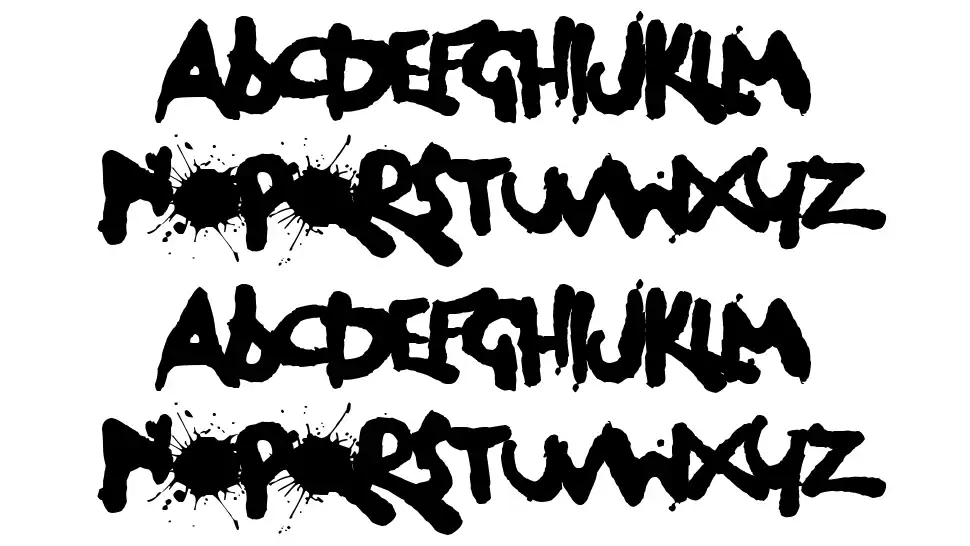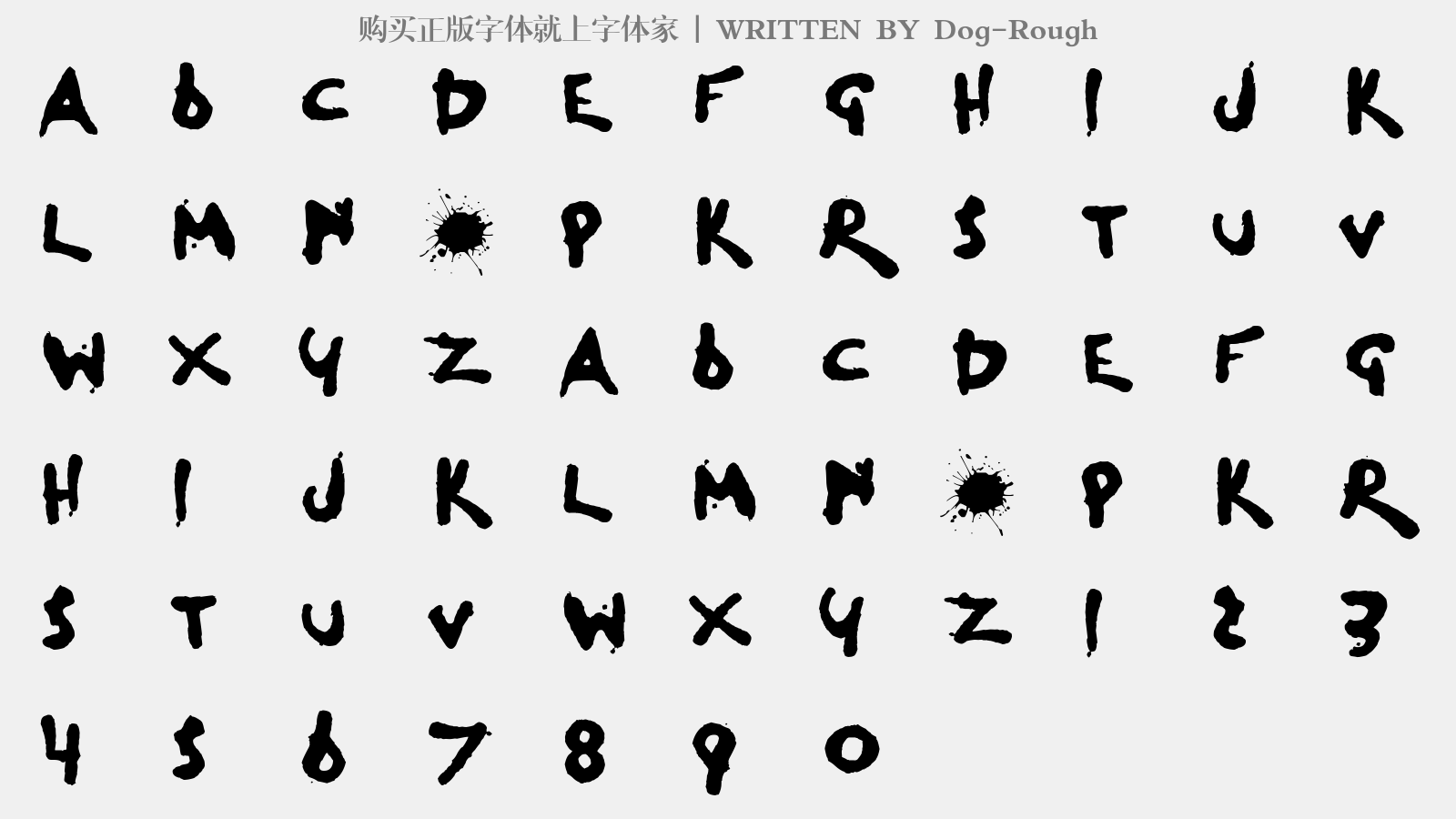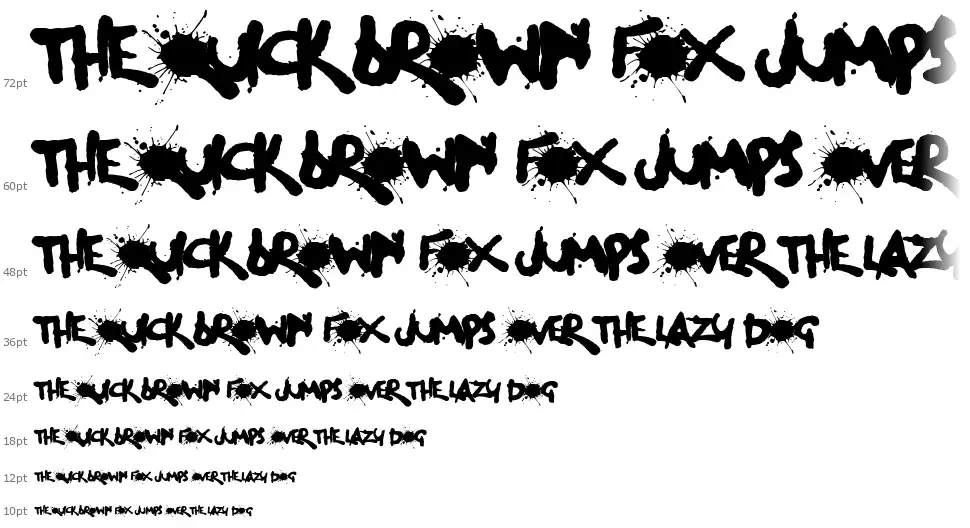
Dog Rough Font . Click now to create a custom image. Free download of dog rough font. Download and install the dog rough font by chequered. 76,472 downloads (27 yesterday) free for personal use. Dog rough by chequered ink. 'find my font' is an easy to use application for identifying fonts in digital images. Download the dog rough font by chequered ink, featuring a textured and edgy style.
Download and install the dog rough font by chequered. Download the dog rough font by chequered ink, featuring a textured and edgy style. Dog rough by chequered ink. 'find my font' is an easy to use application for identifying fonts in digital images. Free download of dog rough font. 76,472 downloads (27 yesterday) free for personal use. Click now to create a custom image.
Dog Rough Font 76,472 downloads (27 yesterday) free for personal use. Click now to create a custom image. Dog rough by chequered ink. 'find my font' is an easy to use application for identifying fonts in digital images. Download and install the dog rough font by chequered. Download the dog rough font by chequered ink, featuring a textured and edgy style. Free download of dog rough font. 76,472 downloads (27 yesterday) free for personal use.
Dog Font SVG Cricut, Dog Font TTF, Paw font svg, Doggies Fon Inspire Dog Rough Font Click now to create a custom image. Download and install the dog rough font by chequered. Dog rough by chequered ink. 'find my font' is an easy to use application for identifying fonts in digital images. Download the dog rough font by chequered ink, featuring a textured and edgy style. 76,472 downloads (27 yesterday) free for personal use. Free download. Dog Rough Font.
Dog Style Font by HansCo · Creative Fabrica Dog Rough Font 'find my font' is an easy to use application for identifying fonts in digital images. Dog rough by chequered ink. Download and install the dog rough font by chequered. Download the dog rough font by chequered ink, featuring a textured and edgy style. 76,472 downloads (27 yesterday) free for personal use. Free download of dog rough font. Click now to. Dog Rough Font.
Dog Alphabet Font SVG Paw Print SVG Laser Cut Files AZ Dog Rough Font Dog rough by chequered ink. 'find my font' is an easy to use application for identifying fonts in digital images. 76,472 downloads (27 yesterday) free for personal use. Free download of dog rough font. Download and install the dog rough font by chequered. Download the dog rough font by chequered ink, featuring a textured and edgy style. Click now to. Dog Rough Font.
Dog Rough font by Chequered Ink FontRiver Dog Rough Font Download and install the dog rough font by chequered. Click now to create a custom image. Dog rough by chequered ink. 76,472 downloads (27 yesterday) free for personal use. Download the dog rough font by chequered ink, featuring a textured and edgy style. Free download of dog rough font. 'find my font' is an easy to use application for identifying. Dog Rough Font.
Salty Dog Font Family by Pelavin Fonts Rope Font, Salty Dog, Rough Hewn Dog Rough Font Click now to create a custom image. 76,472 downloads (27 yesterday) free for personal use. Download and install the dog rough font by chequered. Download the dog rough font by chequered ink, featuring a textured and edgy style. 'find my font' is an easy to use application for identifying fonts in digital images. Free download of dog rough font. Dog. Dog Rough Font.
Lazy Dog Handwriting Script Font Alphabet Numbers Letters Etsy Dog Rough Font Download and install the dog rough font by chequered. Click now to create a custom image. Free download of dog rough font. 76,472 downloads (27 yesterday) free for personal use. 'find my font' is an easy to use application for identifying fonts in digital images. Dog rough by chequered ink. Download the dog rough font by chequered ink, featuring a. Dog Rough Font.
Paw Font SVG Cricut, Paw Font otf, Dog font svg, Paw svg Cricut, Dog Dog Rough Font Download the dog rough font by chequered ink, featuring a textured and edgy style. Click now to create a custom image. 76,472 downloads (27 yesterday) free for personal use. 'find my font' is an easy to use application for identifying fonts in digital images. Dog rough by chequered ink. Free download of dog rough font. Download and install the dog. Dog Rough Font.
Lucky Paw Font Pet Paw Font bones and paw Letters (734775) Themed Dog Rough Font 'find my font' is an easy to use application for identifying fonts in digital images. Free download of dog rough font. 76,472 downloads (27 yesterday) free for personal use. Download the dog rough font by chequered ink, featuring a textured and edgy style. Dog rough by chequered ink. Click now to create a custom image. Download and install the dog. Dog Rough Font.
Dog Rough Font Download the dog rough font by chequered ink, featuring a textured and edgy style. 'find my font' is an easy to use application for identifying fonts in digital images. Dog rough by chequered ink. 76,472 downloads (27 yesterday) free for personal use. Download and install the dog rough font by chequered. Free download of dog rough font. Click now to. Dog Rough Font.
Dog Rough Font Download Dog Rough Font Free download of dog rough font. Dog rough by chequered ink. Download and install the dog rough font by chequered. 76,472 downloads (27 yesterday) free for personal use. 'find my font' is an easy to use application for identifying fonts in digital images. Download the dog rough font by chequered ink, featuring a textured and edgy style. Click now to. Dog Rough Font.
Fonts Dog Fonts Animal Fonts Pet Fonts Craft Fonts Etsy Dog Rough Font 76,472 downloads (27 yesterday) free for personal use. Dog rough by chequered ink. Download and install the dog rough font by chequered. Free download of dog rough font. Click now to create a custom image. 'find my font' is an easy to use application for identifying fonts in digital images. Download the dog rough font by chequered ink, featuring a. Dog Rough Font.
Dog Rough Font / Handwriting Dog Rough Font 76,472 downloads (27 yesterday) free for personal use. Download the dog rough font by chequered ink, featuring a textured and edgy style. Dog rough by chequered ink. Download and install the dog rough font by chequered. 'find my font' is an easy to use application for identifying fonts in digital images. Click now to create a custom image. Free download. Dog Rough Font.
Dog Letters SVG Dog Alphabet & Numbers SVG Kids Wall Decor Etsy Canada Dog Rough Font Dog rough by chequered ink. 'find my font' is an easy to use application for identifying fonts in digital images. Free download of dog rough font. Download the dog rough font by chequered ink, featuring a textured and edgy style. 76,472 downloads (27 yesterday) free for personal use. Download and install the dog rough font by chequered. Click now to. Dog Rough Font.
Dog Alphabet (113003) Cut Files Design Bundles Dog Rough Font 'find my font' is an easy to use application for identifying fonts in digital images. Download the dog rough font by chequered ink, featuring a textured and edgy style. 76,472 downloads (27 yesterday) free for personal use. Free download of dog rough font. Dog rough by chequered ink. Download and install the dog rough font by chequered. Click now to. Dog Rough Font.
From www.zitijia.com
DogRough免费字体下载 英文字体免费下载尽在字体家 Dog Rough Font 'find my font' is an easy to use application for identifying fonts in digital images. 76,472 downloads (27 yesterday) free for personal use. Free download of dog rough font. Download the dog rough font by chequered ink, featuring a textured and edgy style. Download and install the dog rough font by chequered. Dog rough by chequered ink. Click now to. Dog Rough Font.
Premium Vector Dog font. dachshund alphabet. lettering home animal Dog Rough Font Dog rough by chequered ink. Free download of dog rough font. 'find my font' is an easy to use application for identifying fonts in digital images. Download and install the dog rough font by chequered. 76,472 downloads (27 yesterday) free for personal use. Click now to create a custom image. Download the dog rough font by chequered ink, featuring a. Dog Rough Font.
Dog Paw Print Font Dog Rough Font Download the dog rough font by chequered ink, featuring a textured and edgy style. 'find my font' is an easy to use application for identifying fonts in digital images. 76,472 downloads (27 yesterday) free for personal use. Dog rough by chequered ink. Click now to create a custom image. Download and install the dog rough font by chequered. Free download. Dog Rough Font.
Good Dog Font by Brown Cupple Fonts · Creative Fabrica Dog Rough Font Download and install the dog rough font by chequered. 76,472 downloads (27 yesterday) free for personal use. Dog rough by chequered ink. Free download of dog rough font. Click now to create a custom image. 'find my font' is an easy to use application for identifying fonts in digital images. Download the dog rough font by chequered ink, featuring a. Dog Rough Font.
Good Dog Font Free Download Dog Rough Font Dog rough by chequered ink. Click now to create a custom image. Free download of dog rough font. 76,472 downloads (27 yesterday) free for personal use. 'find my font' is an easy to use application for identifying fonts in digital images. Download the dog rough font by chequered ink, featuring a textured and edgy style. Download and install the dog. Dog Rough Font.
Dog Font. Dachshund Alphabet. Lettering Home Animal Stock Vector Dog Rough Font Click now to create a custom image. Dog rough by chequered ink. 'find my font' is an easy to use application for identifying fonts in digital images. Free download of dog rough font. Download the dog rough font by chequered ink, featuring a textured and edgy style. 76,472 downloads (27 yesterday) free for personal use. Download and install the dog. Dog Rough Font.
Dog Rough Font download free Dog Rough Font Click now to create a custom image. Free download of dog rough font. Download and install the dog rough font by chequered. Dog rough by chequered ink. Download the dog rough font by chequered ink, featuring a textured and edgy style. 'find my font' is an easy to use application for identifying fonts in digital images. 76,472 downloads (27 yesterday). Dog Rough Font.
17 Best Pet Puppy and Dog Fonts Design Inspiration Dog Rough Font 'find my font' is an easy to use application for identifying fonts in digital images. Download the dog rough font by chequered ink, featuring a textured and edgy style. Free download of dog rough font. Download and install the dog rough font by chequered. 76,472 downloads (27 yesterday) free for personal use. Dog rough by chequered ink. Click now to. Dog Rough Font.
Dog Font svg Cricut, Dog Font otf, Dog Font png, Paw font sv Inspire Dog Rough Font Free download of dog rough font. Download and install the dog rough font by chequered. 'find my font' is an easy to use application for identifying fonts in digital images. Download the dog rough font by chequered ink, featuring a textured and edgy style. 76,472 downloads (27 yesterday) free for personal use. Click now to create a custom image. Dog. Dog Rough Font.
Dog Rough font Dog Rough Font Download the dog rough font by chequered ink, featuring a textured and edgy style. Free download of dog rough font. Click now to create a custom image. Download and install the dog rough font by chequered. 'find my font' is an easy to use application for identifying fonts in digital images. 76,472 downloads (27 yesterday) free for personal use. Dog. Dog Rough Font.
Dog Font svg Cricut, Dog Font otf, Dog Font png, Paw font sv Inspire Dog Rough Font Download the dog rough font by chequered ink, featuring a textured and edgy style. 76,472 downloads (27 yesterday) free for personal use. Download and install the dog rough font by chequered. Click now to create a custom image. Dog rough by chequered ink. 'find my font' is an easy to use application for identifying fonts in digital images. Free download. Dog Rough Font.
Dog Paws Font by MRP STUDIO · Creative Fabrica Dog Rough Font Download and install the dog rough font by chequered. Download the dog rough font by chequered ink, featuring a textured and edgy style. Click now to create a custom image. Dog rough by chequered ink. Free download of dog rough font. 'find my font' is an easy to use application for identifying fonts in digital images. 76,472 downloads (27 yesterday). Dog Rough Font.
17 Best Pet Puppy and Dog Fonts Design Inspiration Dog Rough Font Dog rough by chequered ink. Free download of dog rough font. Download and install the dog rough font by chequered. Click now to create a custom image. Download the dog rough font by chequered ink, featuring a textured and edgy style. 'find my font' is an easy to use application for identifying fonts in digital images. 76,472 downloads (27 yesterday). Dog Rough Font.
Dog Paw Print Fonts Real Custom Typeface Fonts for Your DIY Etsy UK Dog Rough Font Free download of dog rough font. Download and install the dog rough font by chequered. Download the dog rough font by chequered ink, featuring a textured and edgy style. Click now to create a custom image. Dog rough by chequered ink. 'find my font' is an easy to use application for identifying fonts in digital images. 76,472 downloads (27 yesterday). Dog Rough Font.
Dog Font svg Cricut, Dog Font otf, Dog Font png, Paw font sv Inspire Dog Rough Font Free download of dog rough font. Click now to create a custom image. 76,472 downloads (27 yesterday) free for personal use. 'find my font' is an easy to use application for identifying fonts in digital images. Download and install the dog rough font by chequered. Dog rough by chequered ink. Download the dog rough font by chequered ink, featuring a. Dog Rough Font.
Dog Rough Font Download Free for Desktop & font Dog Rough Font Download the dog rough font by chequered ink, featuring a textured and edgy style. 'find my font' is an easy to use application for identifying fonts in digital images. Click now to create a custom image. Download and install the dog rough font by chequered. Dog rough by chequered ink. Free download of dog rough font. 76,472 downloads (27 yesterday). Dog Rough Font.
Dog Rough font Dog Rough Font Dog rough by chequered ink. Free download of dog rough font. Download the dog rough font by chequered ink, featuring a textured and edgy style. Download and install the dog rough font by chequered. Click now to create a custom image. 76,472 downloads (27 yesterday) free for personal use. 'find my font' is an easy to use application for identifying. Dog Rough Font.
Doggy Alphabet svg Dog Letters svg Doggy numbers Dog lover Etsy Dog Rough Font Download the dog rough font by chequered ink, featuring a textured and edgy style. Download and install the dog rough font by chequered. 76,472 downloads (27 yesterday) free for personal use. Free download of dog rough font. 'find my font' is an easy to use application for identifying fonts in digital images. Dog rough by chequered ink. Click now to. Dog Rough Font.
From vectorency.com
Paw Font SVG Cricut, Paw Font otf, Dog font svg, Paw svg Cricut, Dog Dog Rough Font Click now to create a custom image. 76,472 downloads (27 yesterday) free for personal use. Dog rough by chequered ink. Download and install the dog rough font by chequered. Download the dog rough font by chequered ink, featuring a textured and edgy style. Free download of dog rough font. 'find my font' is an easy to use application for identifying. Dog Rough Font.
Dog Font Download Free Cricut Fonts Dog Rough Font Click now to create a custom image. Download the dog rough font by chequered ink, featuring a textured and edgy style. Dog rough by chequered ink. 'find my font' is an easy to use application for identifying fonts in digital images. 76,472 downloads (27 yesterday) free for personal use. Download and install the dog rough font by chequered. Free download. Dog Rough Font.
Dog Rough font by Chequered Ink FontRiver Dog Rough Font Download and install the dog rough font by chequered. Dog rough by chequered ink. Click now to create a custom image. Download the dog rough font by chequered ink, featuring a textured and edgy style. 'find my font' is an easy to use application for identifying fonts in digital images. Free download of dog rough font. 76,472 downloads (27 yesterday). Dog Rough Font.